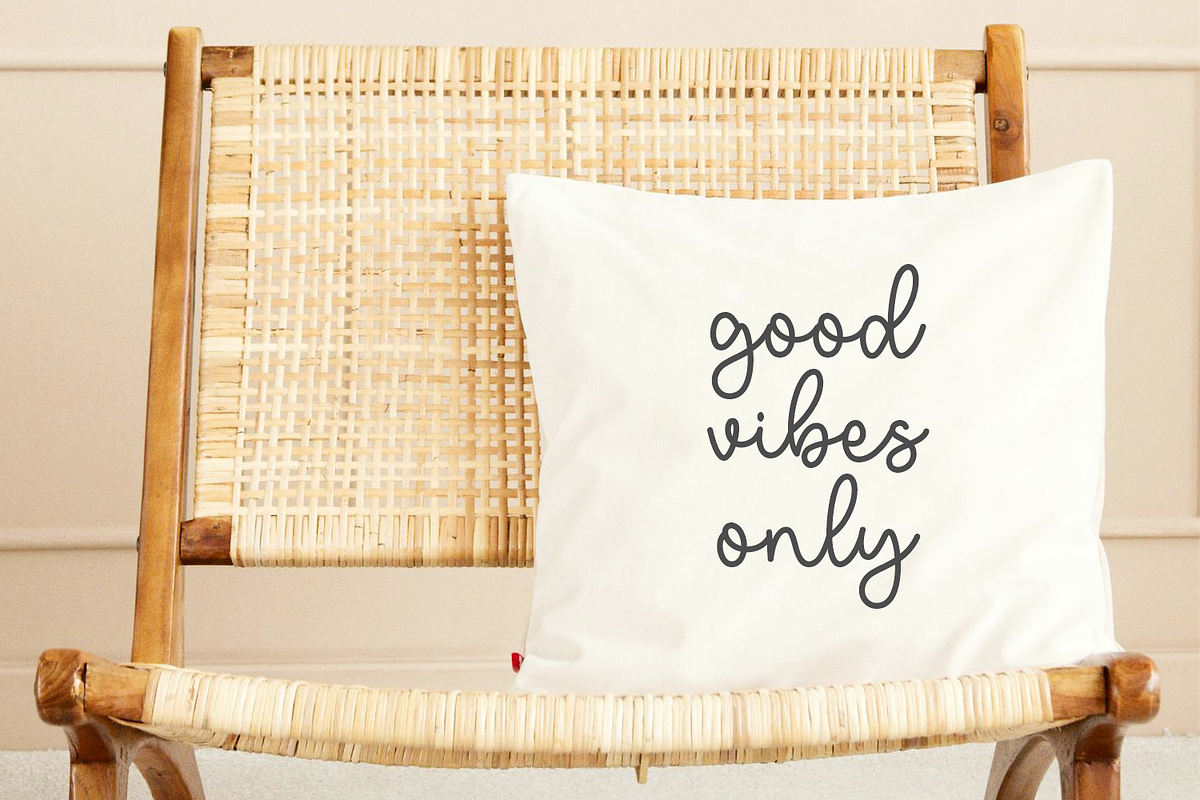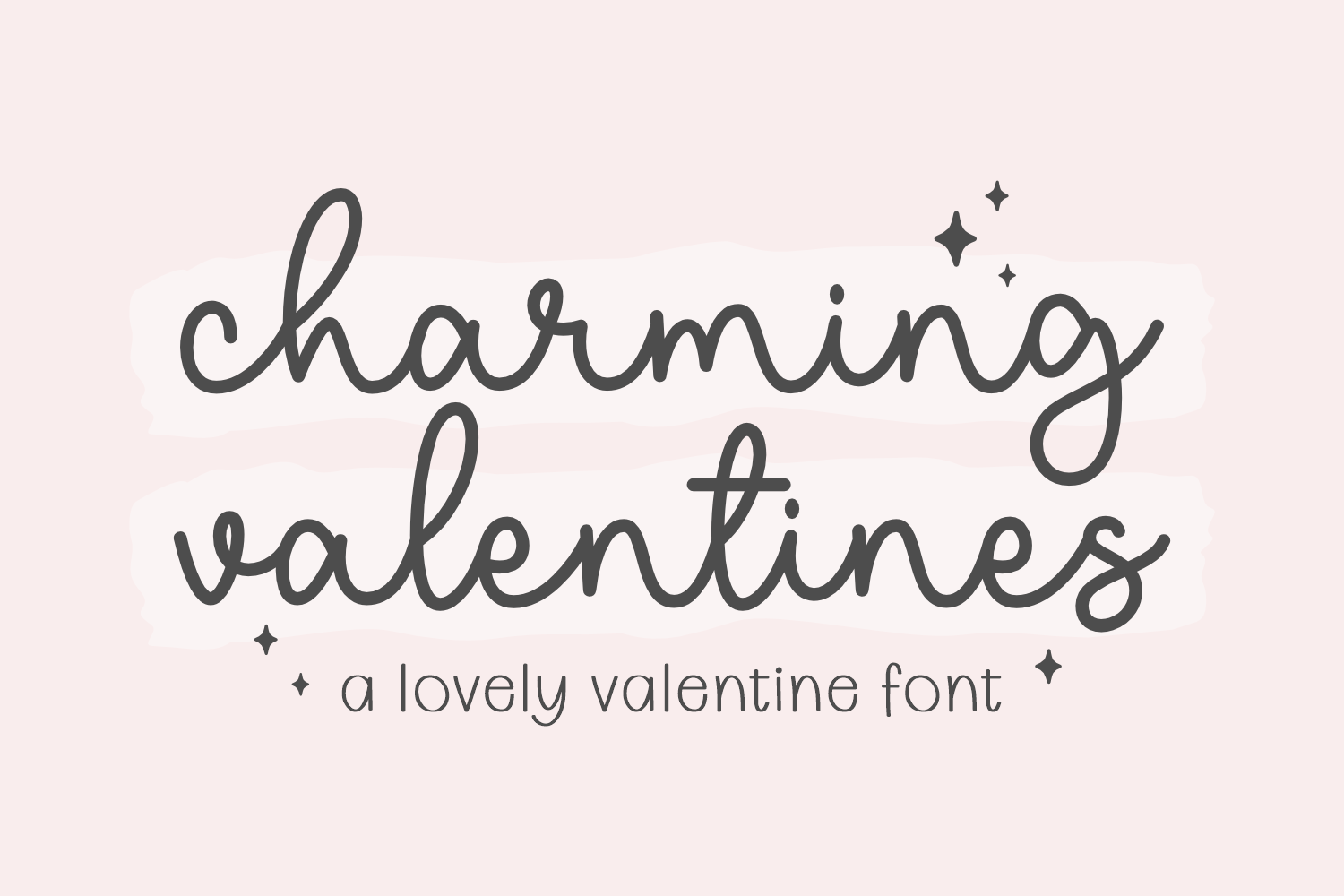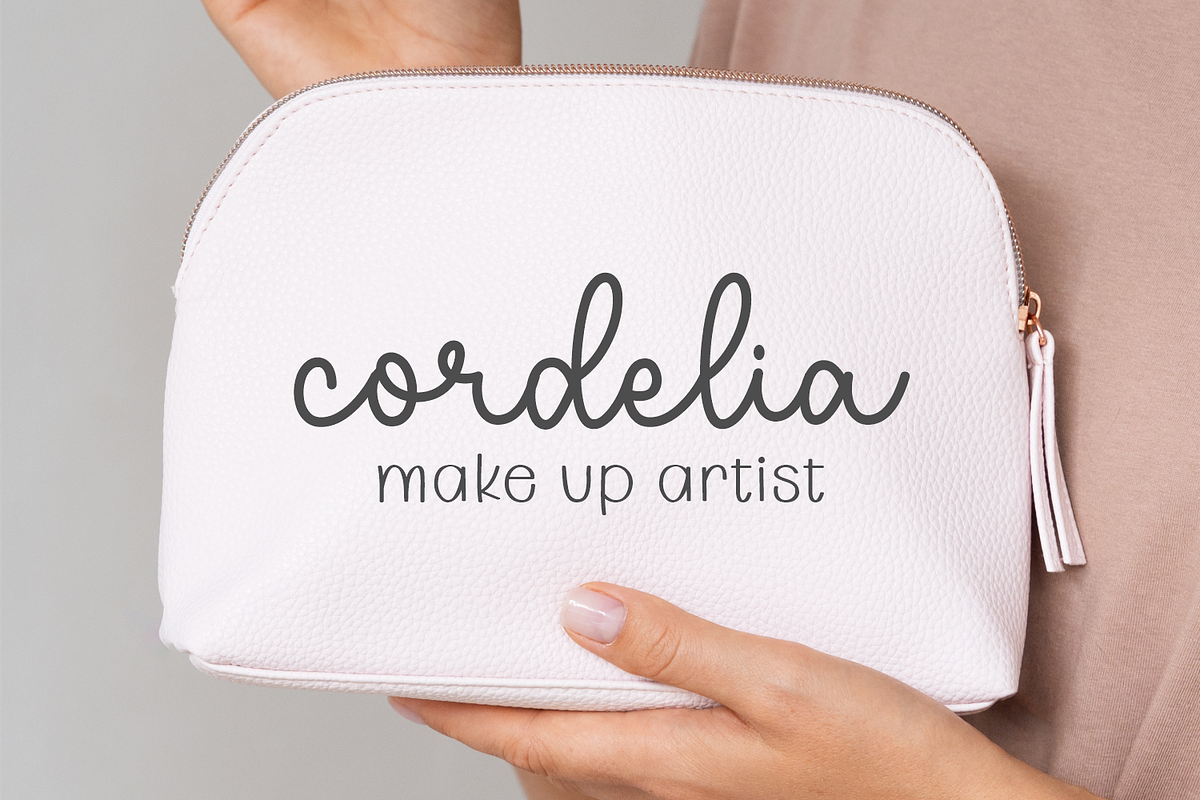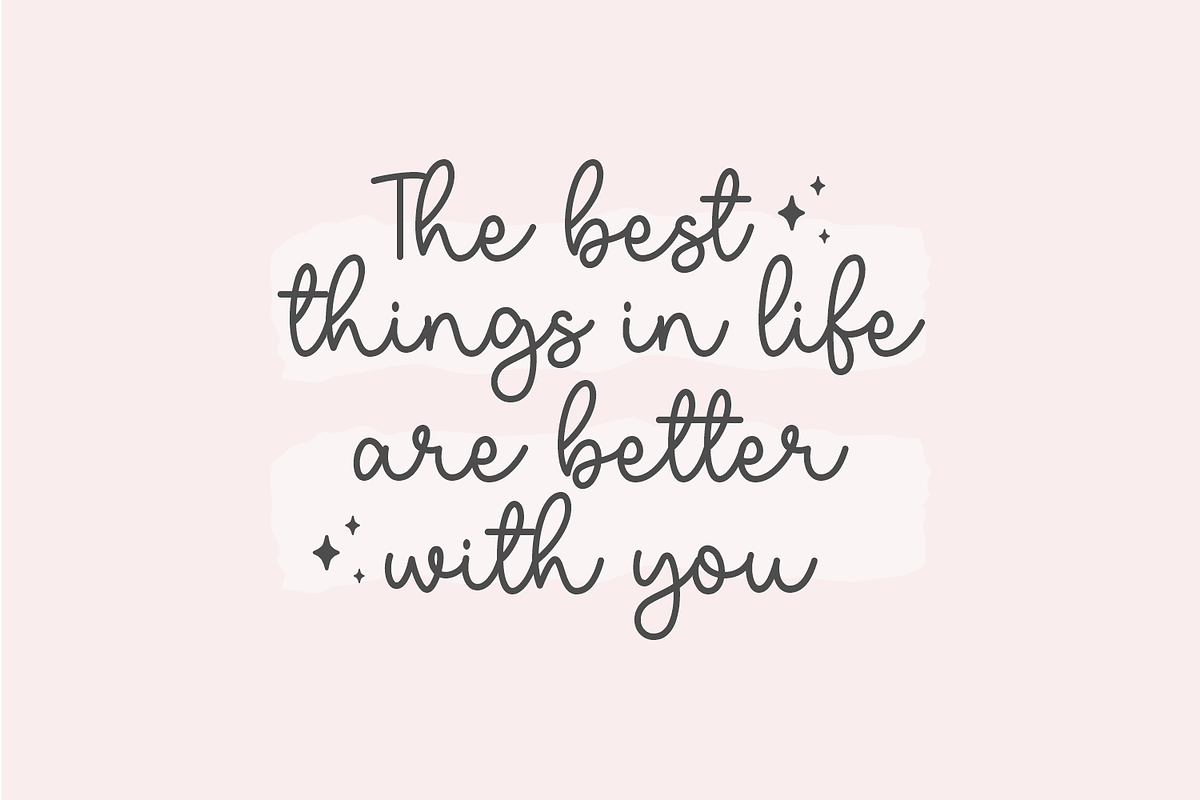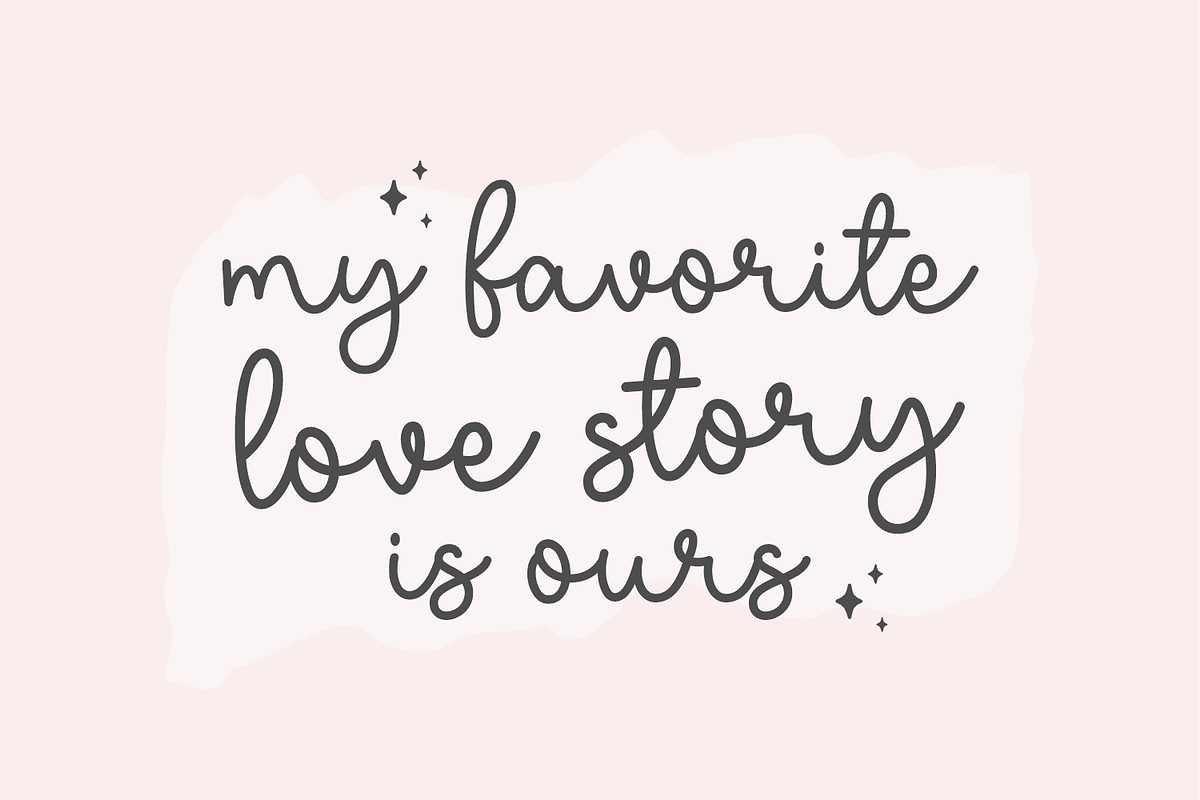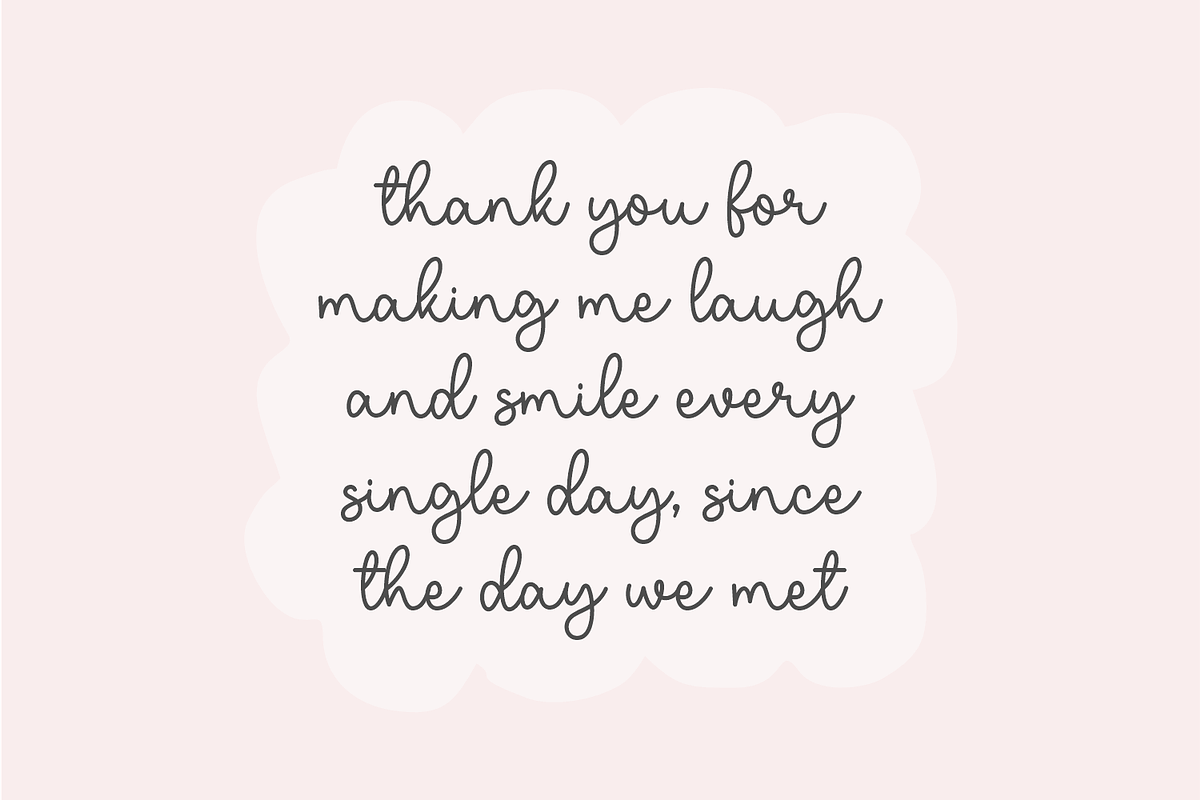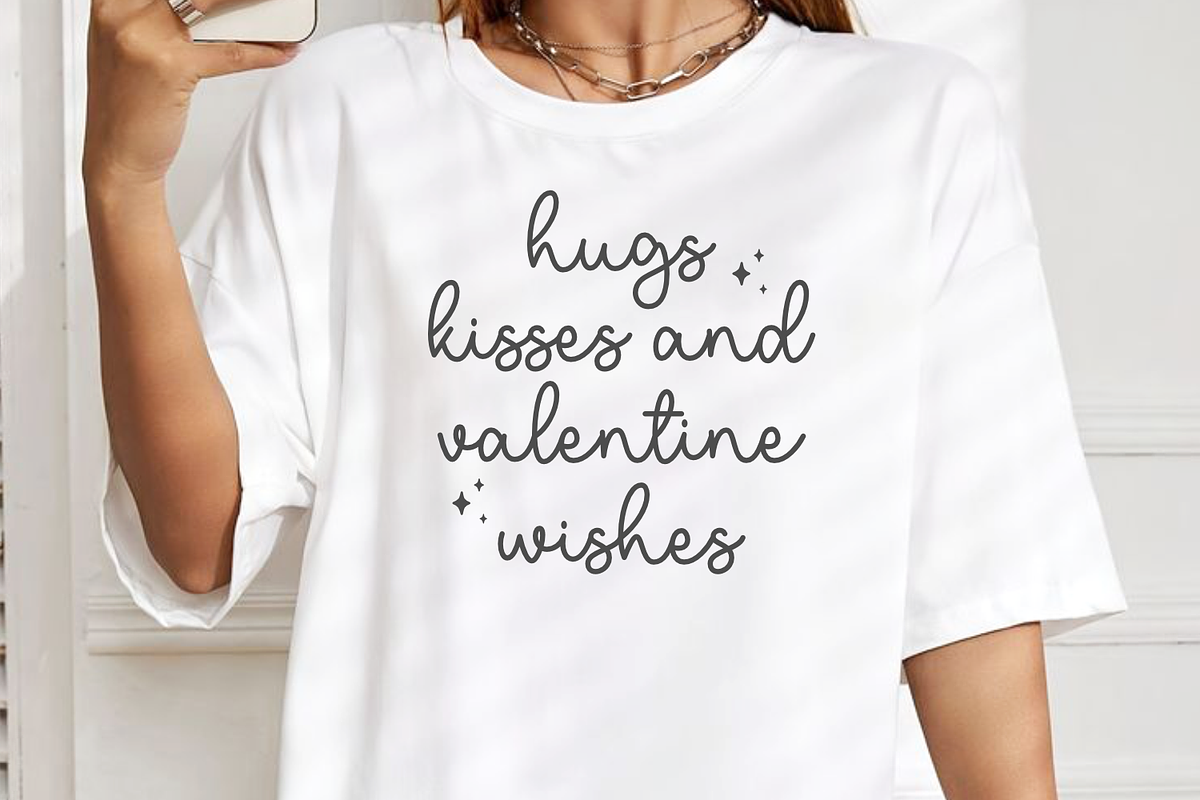
Charming Valentines - Script Font
Discover the infusion of joy with every stroke of Charming Valentines, an adorably captivating monoline script font designed to breathe life into your creative expressions. Designed to suit a multitude of uses, this delightful font embarks gracefully from enchanting t-shirt designs to charming pillow designs. Unleash the romantic in you with greeting cards, logos, and love-infused quotes, perfect for Valentine’s Day.
Transform a simple invitation into a heartfelt declaration of love and let your creativity drench in the spirit of Valentine’s celebration. Elevate any design to extraordinary with the special touch of Charming Valentine's font!